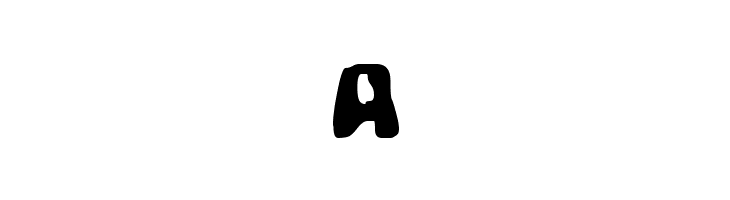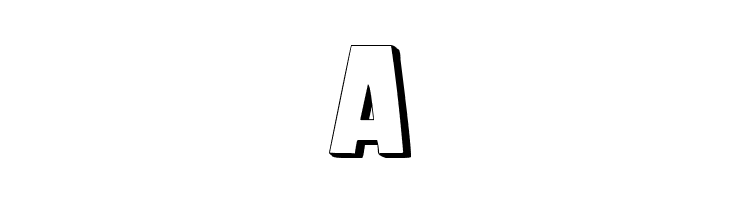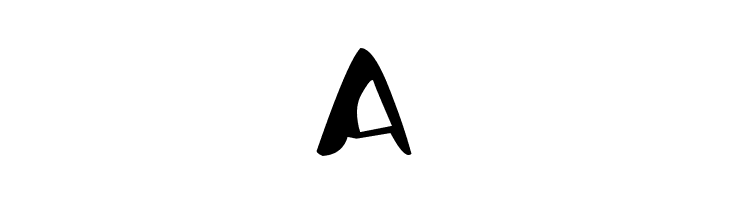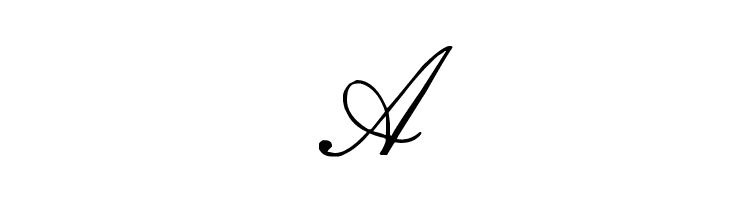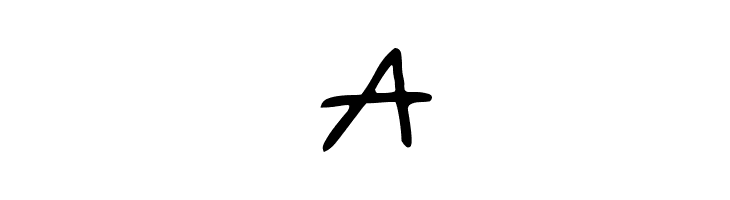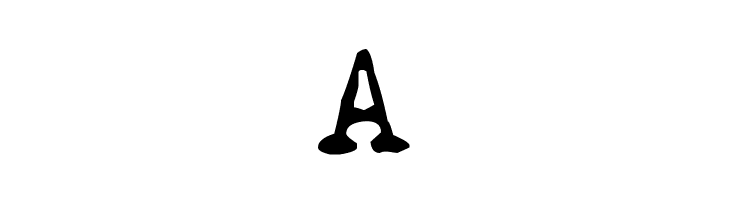
A bold, italicized handwritten font with dynamic, cursive strokes.
A playful, handwritten italic font with a dynamic and casual style.
A bold, brush-style font with an energetic, hand-drawn look.
A bold, cursive script font with elegant, flowing strokes.
A bold, distressed font with a vintage industrial stamp style.
A vintage typewriter-style font with a textured, distressed look.
A bold, rounded typewriter-style font with a modern twist.
A bold, italicized font with a dynamic and expressive style.
A bold, distressed font with a rugged, grunge-like texture.
A bold, hand-drawn font with an energetic and playful style.
A bold, textured font with a crumpled paper effect, perfect for creative projects.
A fluid, handwritten style with a vintage, personal touch.
A bold, classic serif font with a vintage, traditional aesthetic.
A bold, vintage serif font with a handcrafted feel.
A playful, hand-drawn style font with bold, expressive characters.
A playful, handwritten font with a casual and dynamic style.
A playful, hand-drawn font with an informal and whimsical style.
A playful, hand-drawn font with irregular strokes and a whimsical style.
A bold, graffiti-inspired font with a hand-drawn, dynamic style.
A bold, dripping font with a grunge and horror-inspired aesthetic.
A graceful, cursive script font with elegant, flowing lines.
A bold, decorative font with a medieval and ornate style.
A bold, 3D-effect font with a vintage cinema poster style.
A bold, geometric font with a strong, blocky appearance.
A bold, playful font with an organic, fluid design reminiscent of molten lava.
A casual, playful handwritten font with fluid, connected strokes.
A distressed, vintage typewriter-style font with a monospaced, textured appearance.
A vintage typewriter font with a bold, monospaced design and textured appearance.
A vintage typewriter-style font with monospaced characters and a nostalgic feel.
A playful, handwritten typewriter-style font with rounded strokes.
A playful, hand-drawn ink style font with bold, irregular strokes.
A vintage, textured typewriter-style font with a distressed, handcrafted appearance.
A vintage typewriter-style font with irregular, bold characters.
A vintage typewriter-style font with a distressed, handcrafted look.
A playful, hand-drawn font with bold, dynamic strokes and a felt-tip pen style.